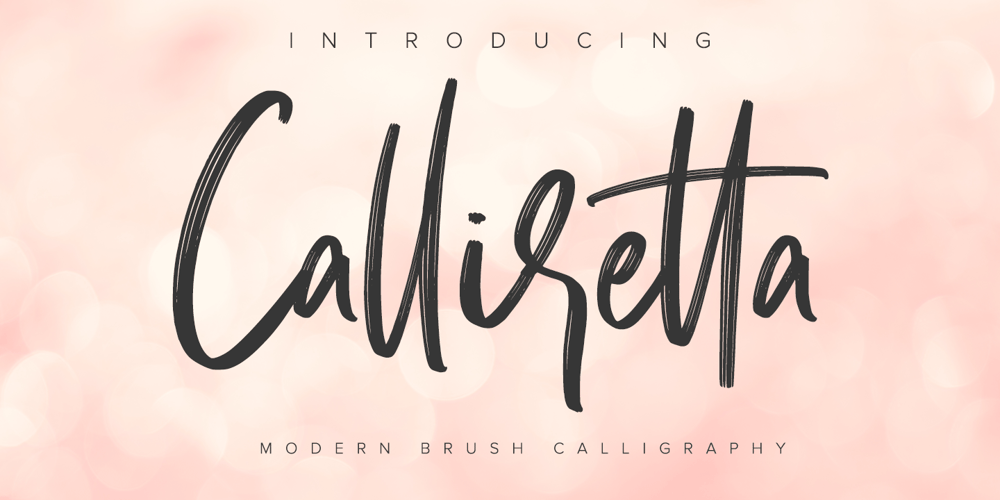
Calliretta Font Family was designed by Donis Miftahudin and published by Ditatype. Calliretta contains 1 styles and family package options. Calliretta is a modern handwritten font. With a classy and natural handwritten style, it brings a classy and chic typeface. Calliretta is best used for weddings, branding, logotype, and quotes.Includes: – Calliretta (OTF)Features: – Beautiful Ligatures – PUA Encoded – Multilingual Support – Numerals and Punctuation